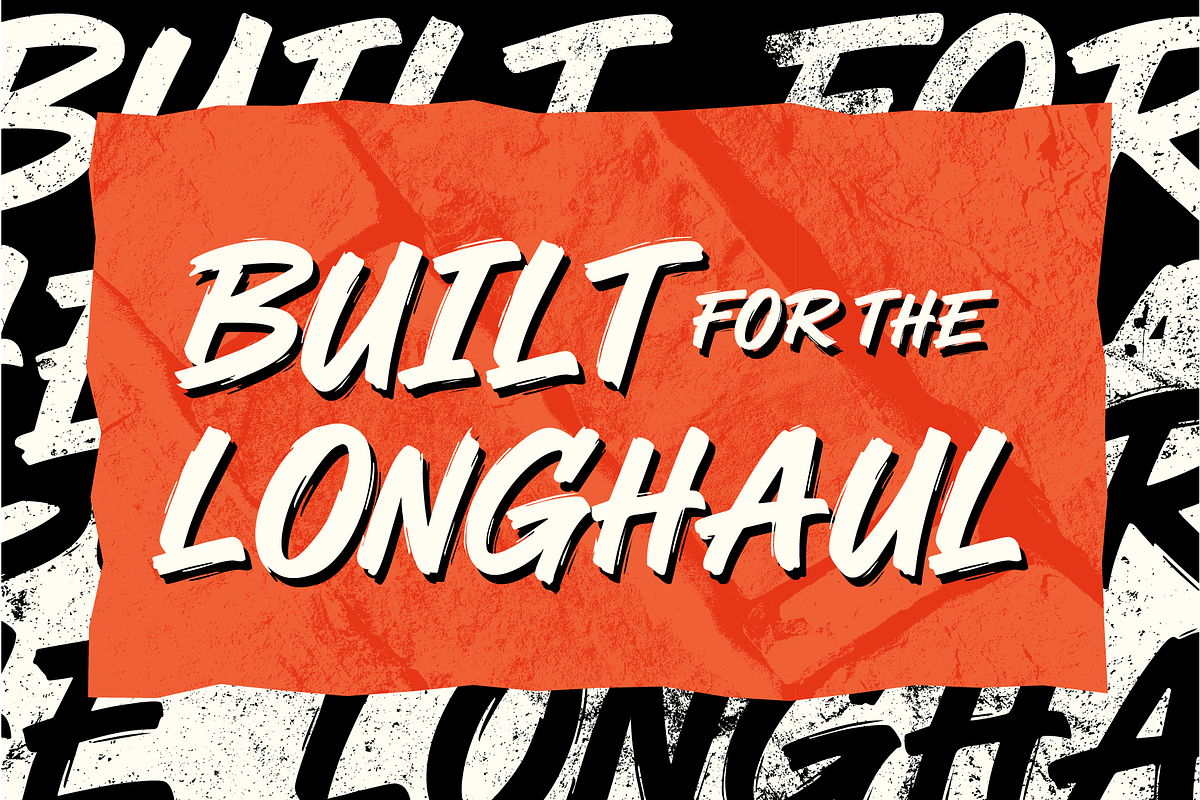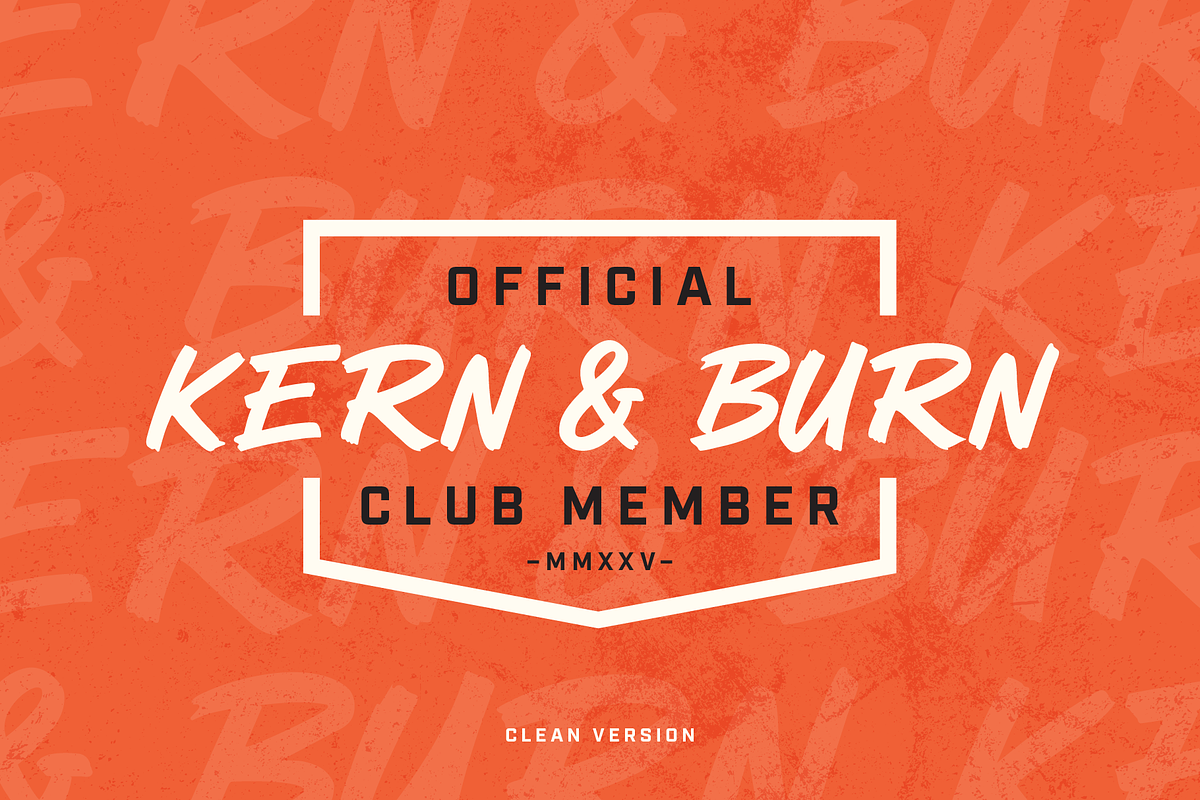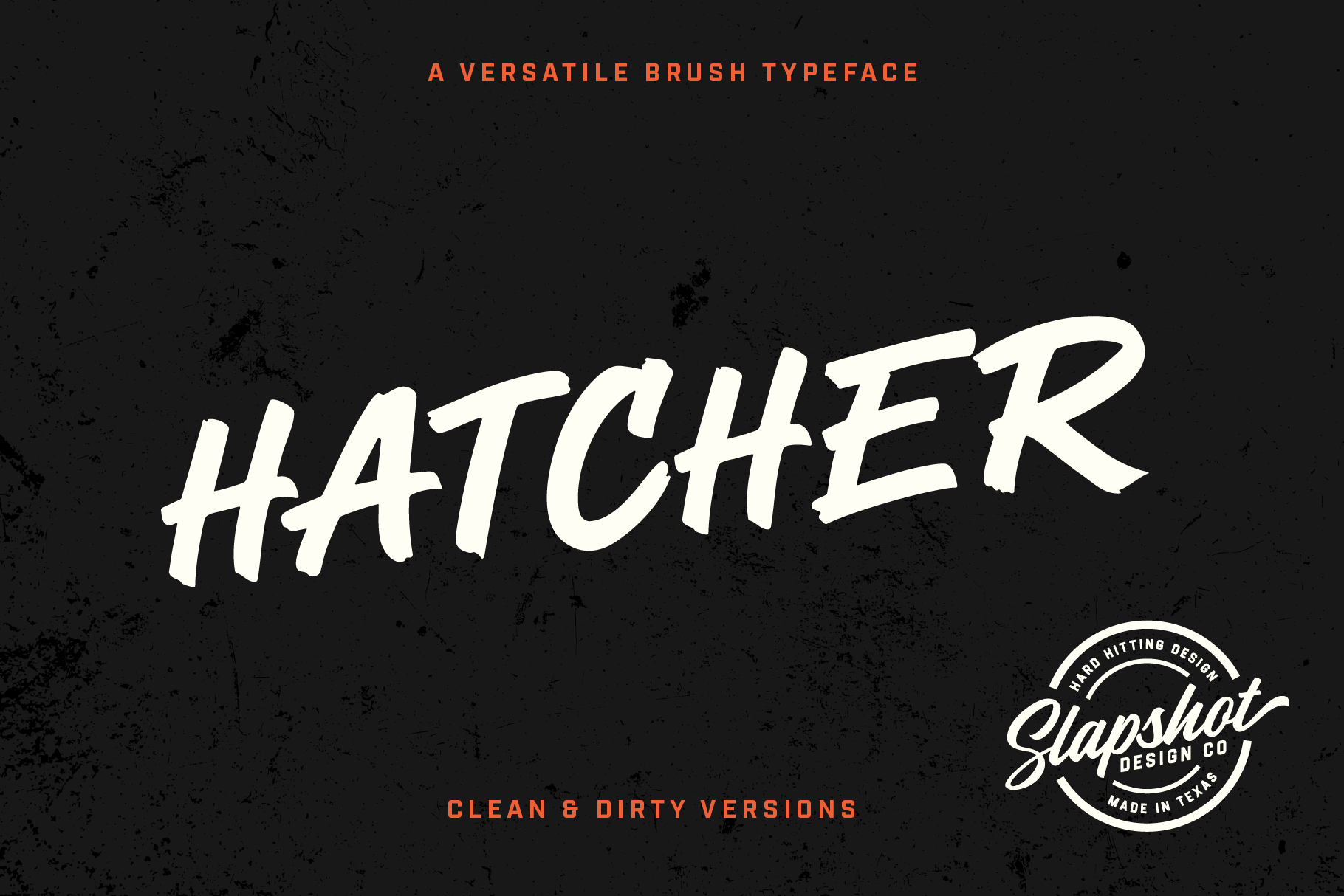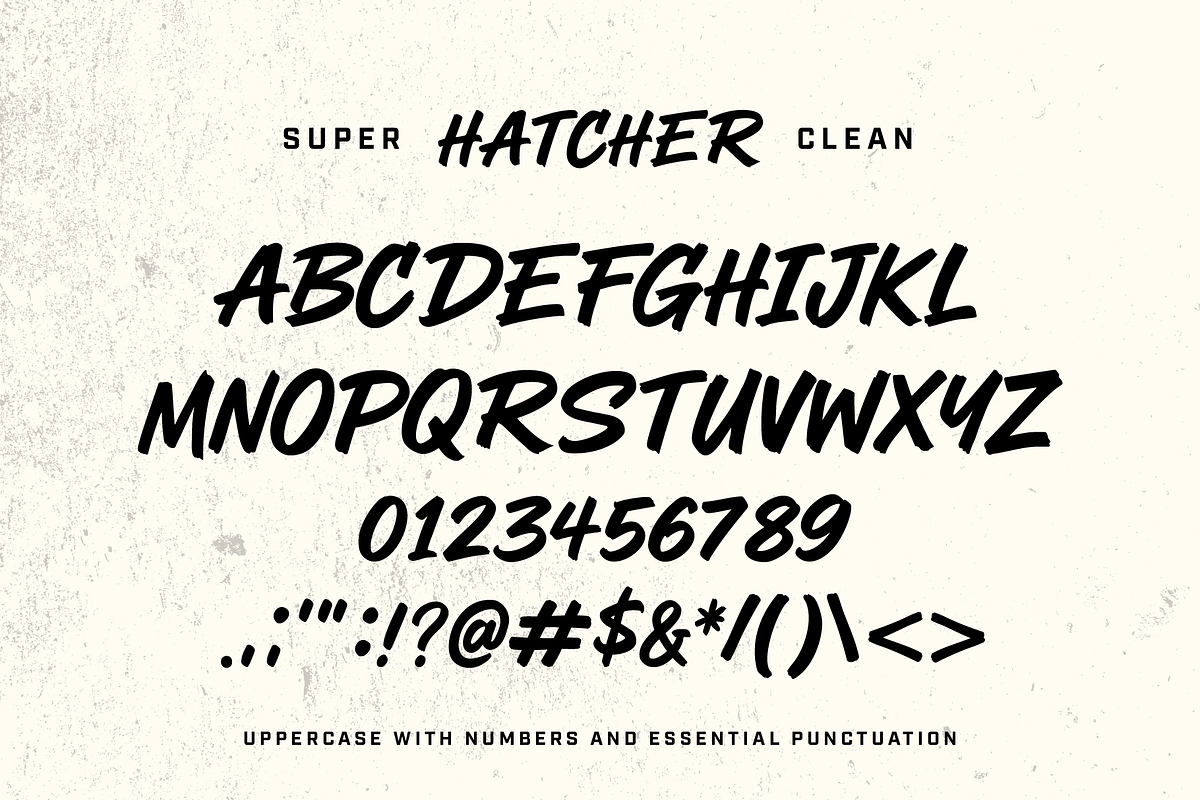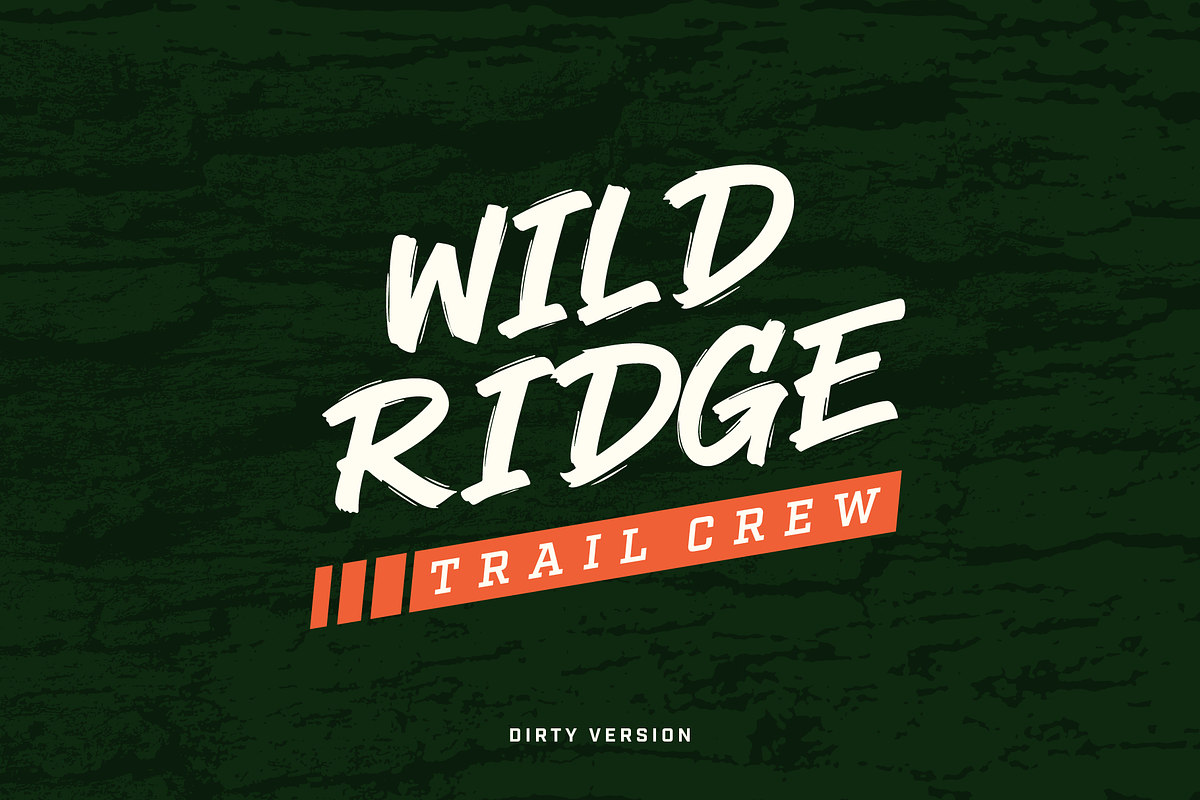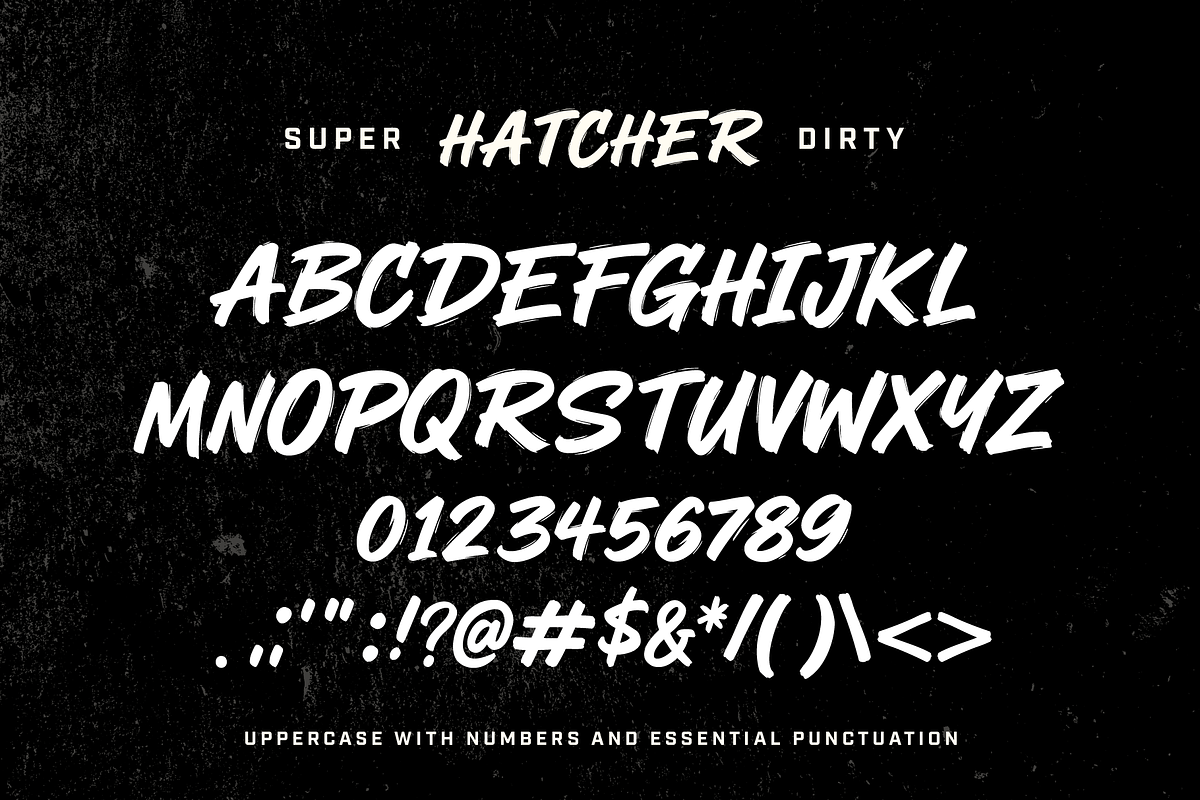
Hatcher - A Versatile Brush Font
Hatcher – A Bold Handwritten Display Font
Hatcher is a bold brush script font built for impact. With it's sharp strokes, raw energy, and handcrafted edge, this typeface is perfect for brands that want to make a statement.